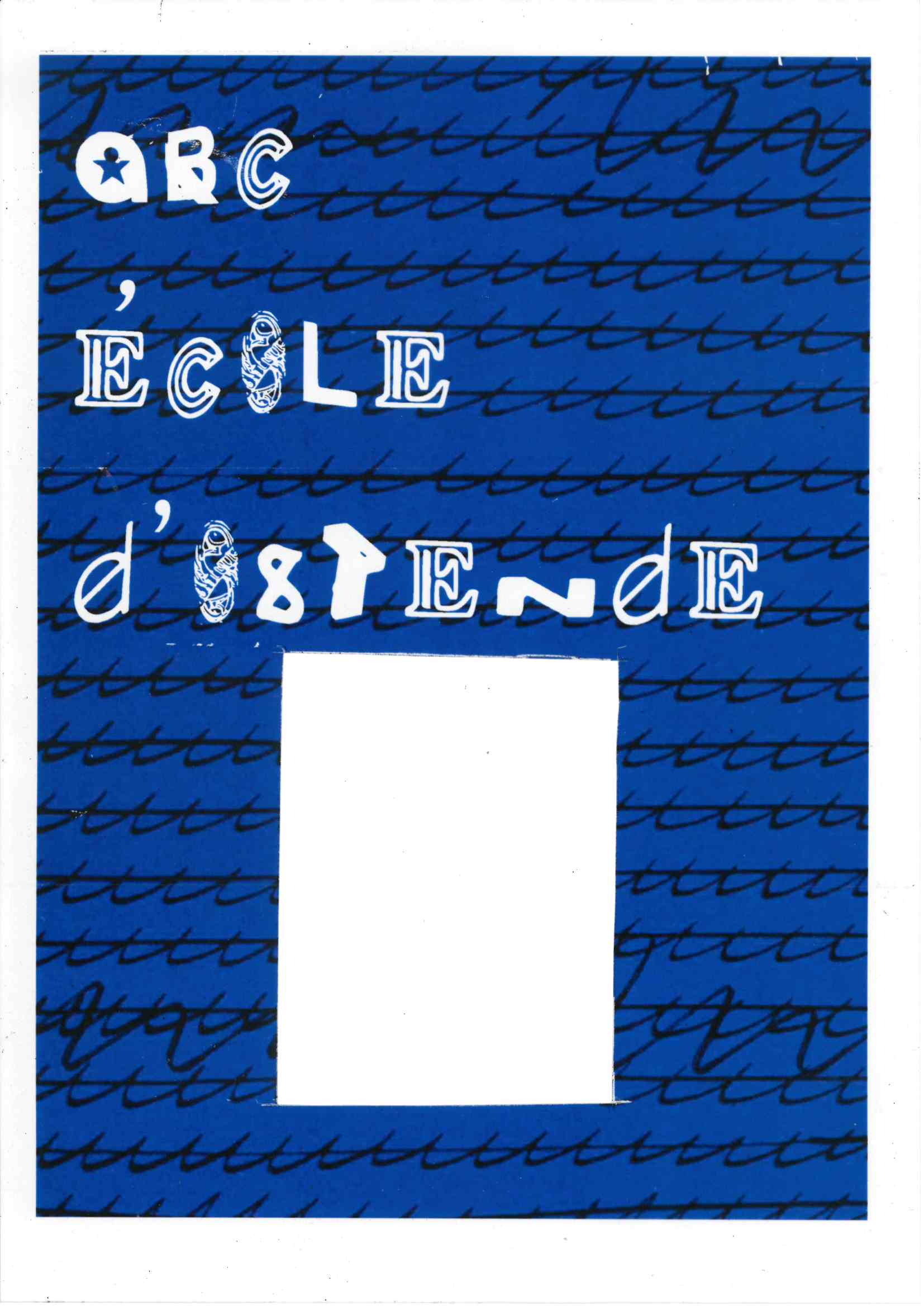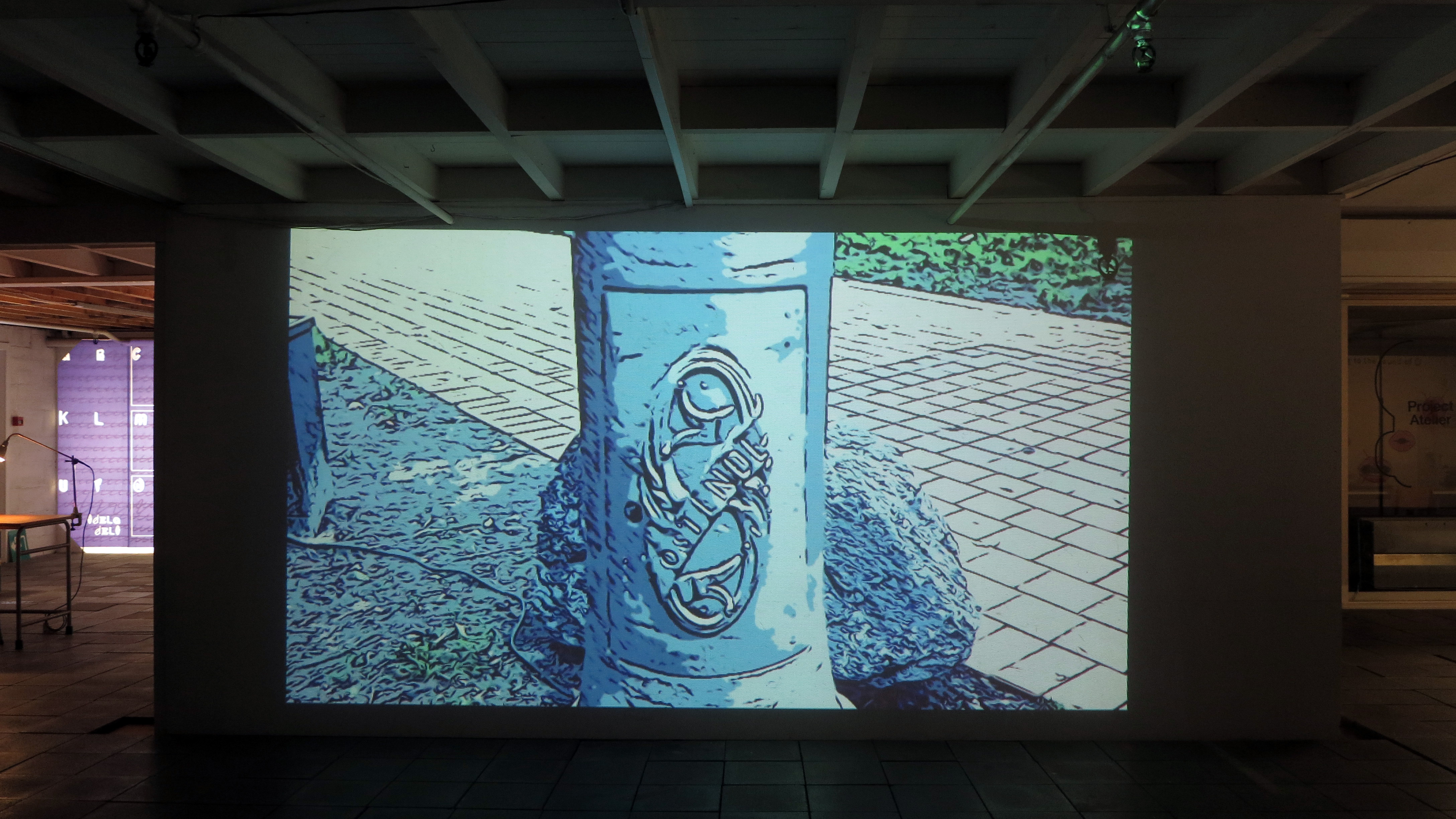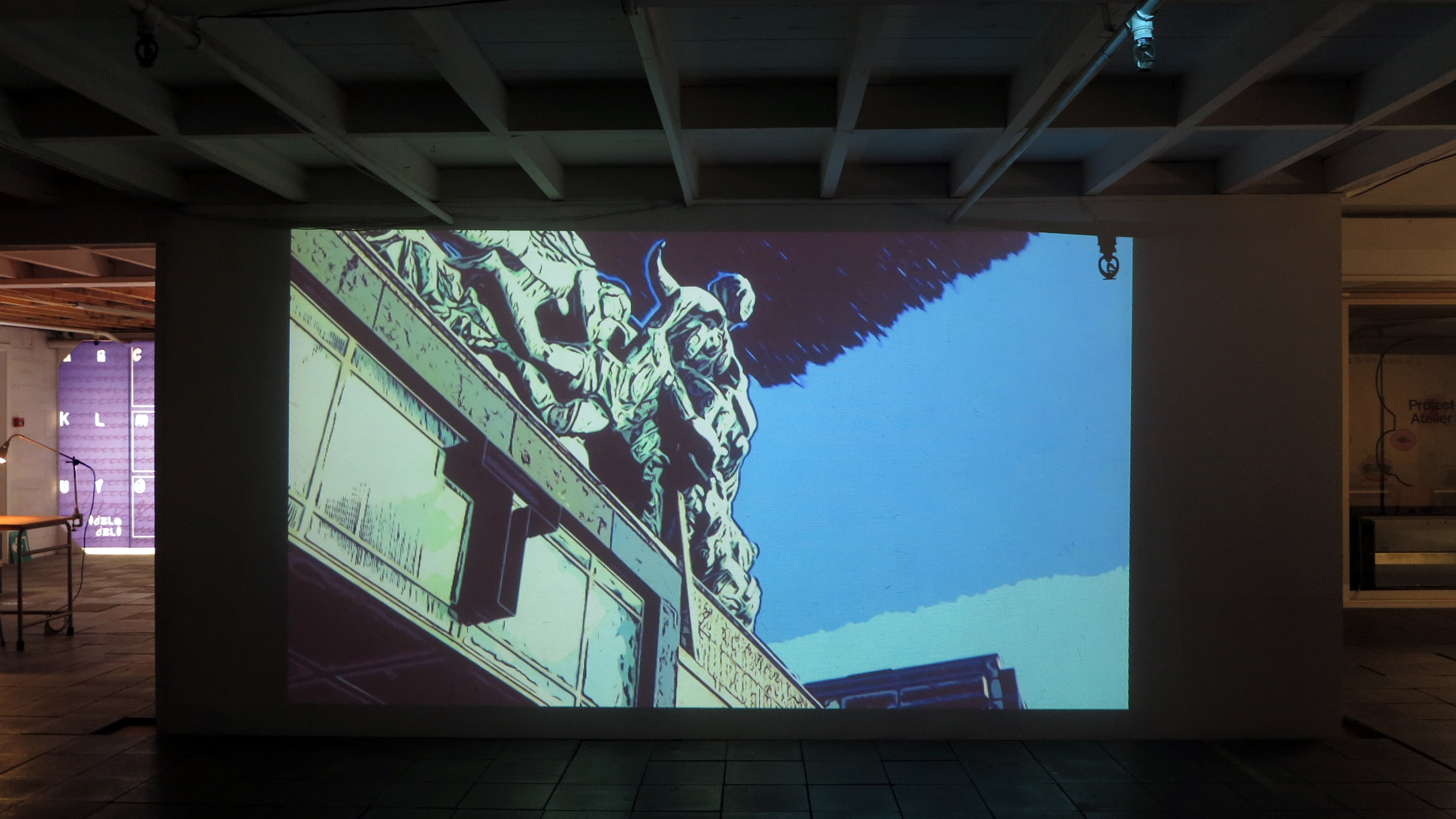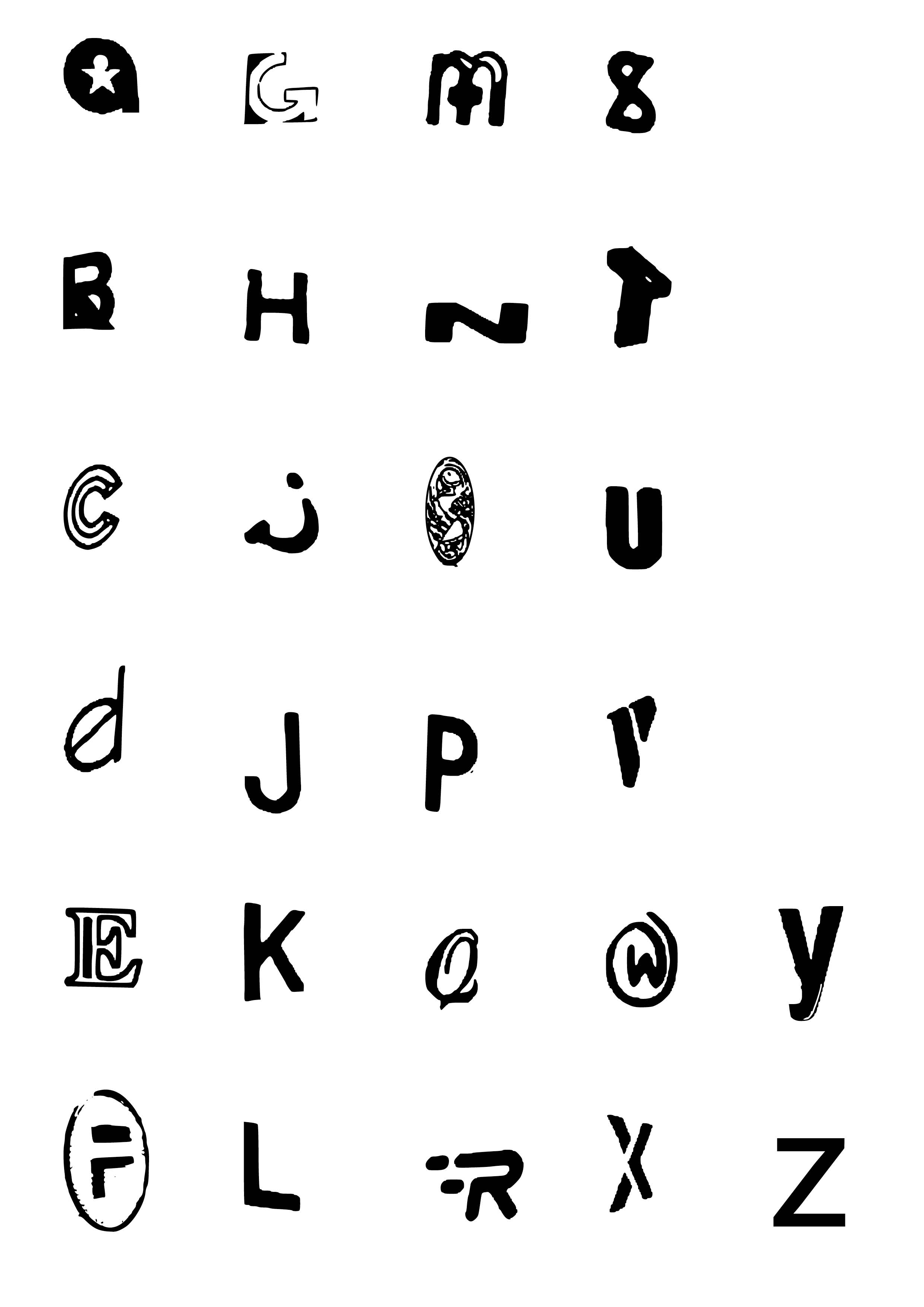
ABC école d’Ostende is a font and animation video created for the city of Ostend during a residency at Projectvierennegentig. The letters were collected within the city, from old lampposts signs to shopfront advertising.